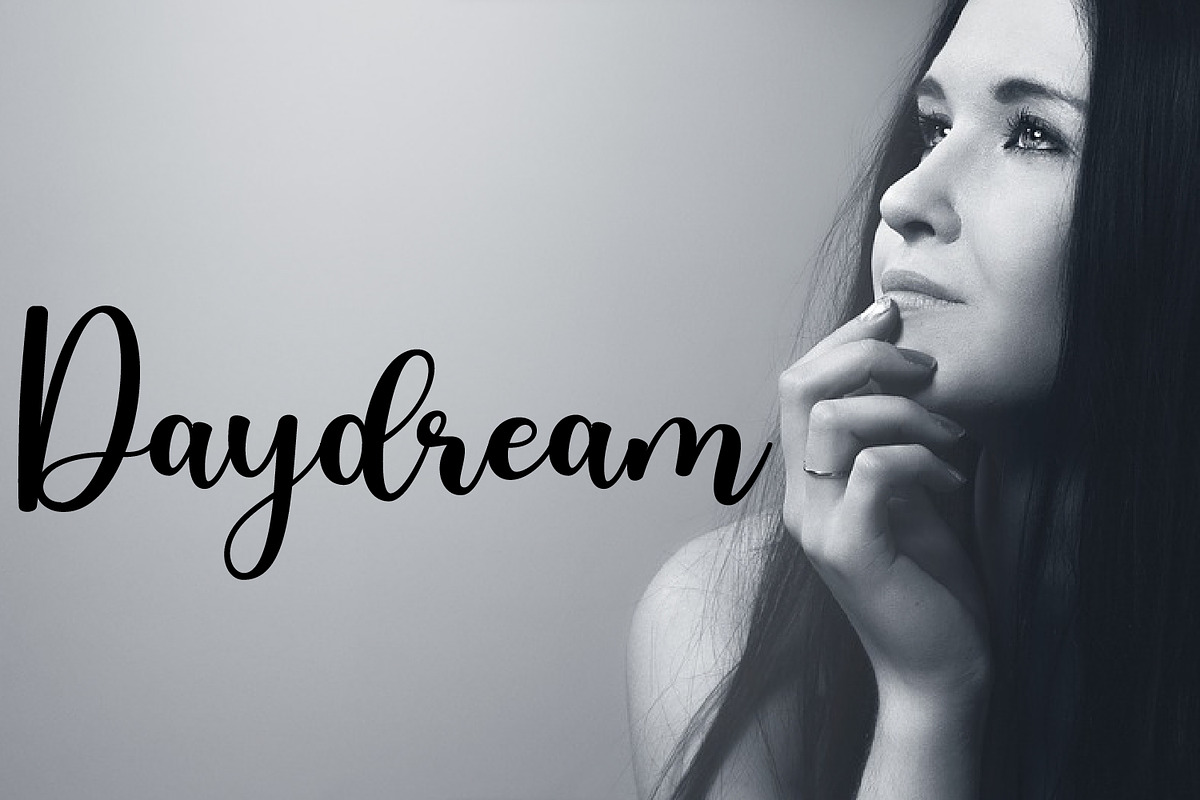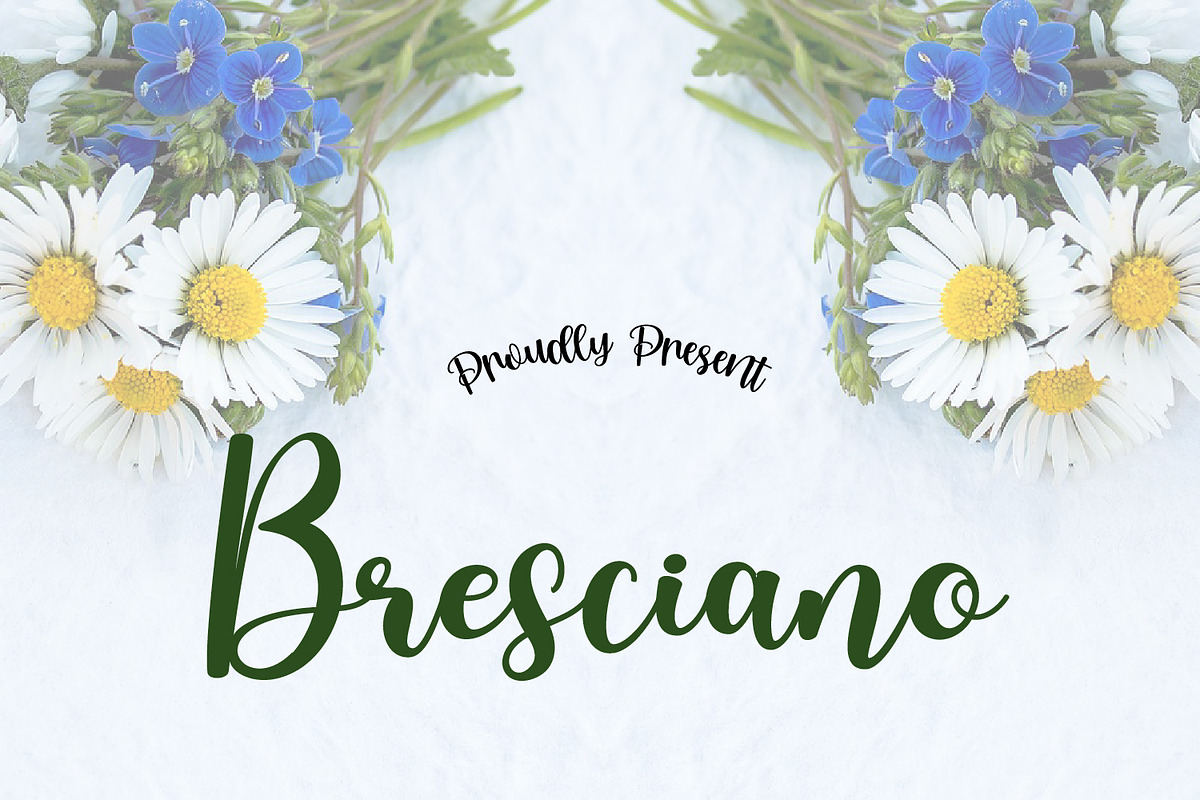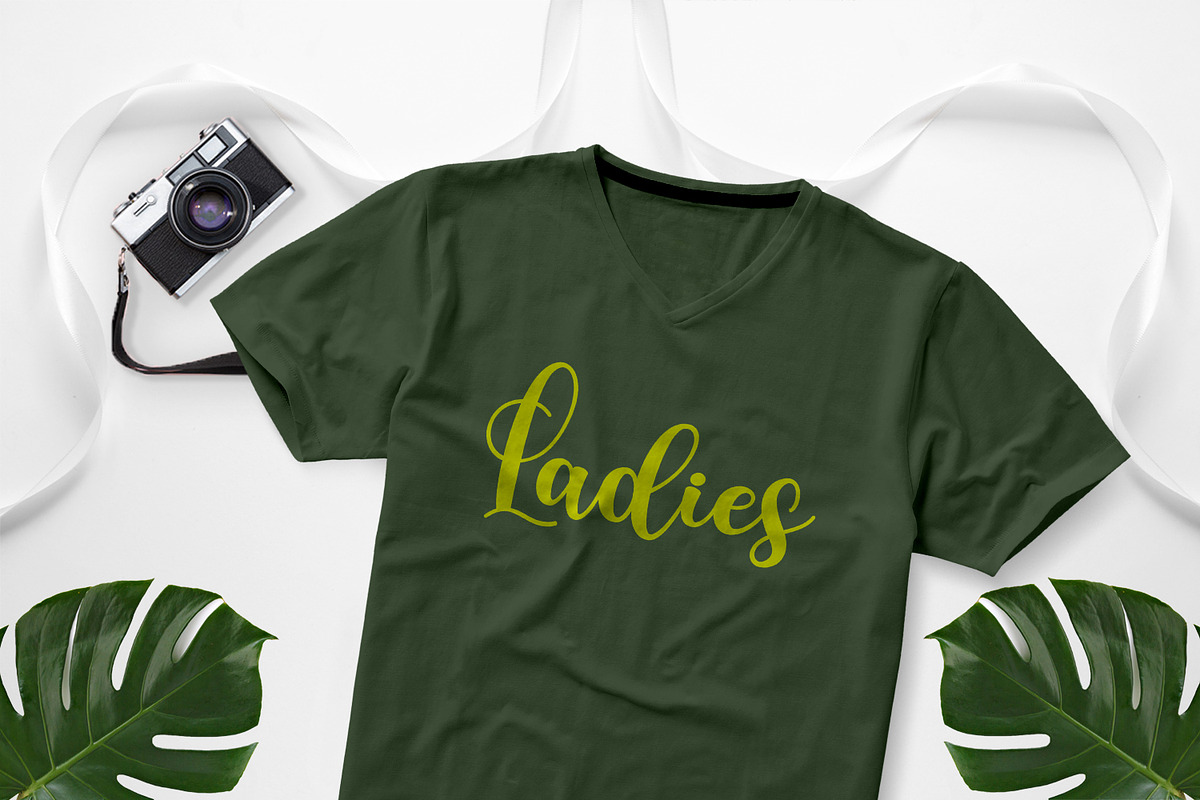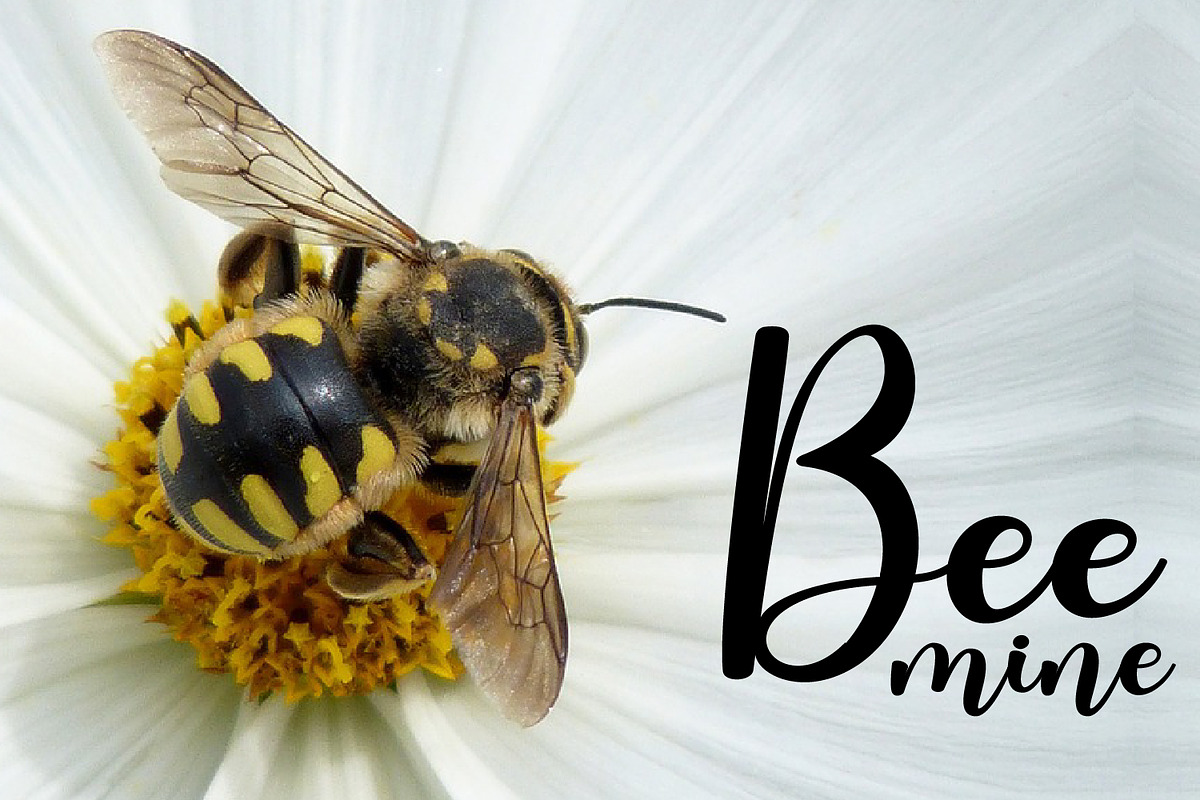
Bresciano Script
Bresciano is the best choice for creating eye catching logos, branding and quotes. Every letter has a unique and beautiful touch, which will make your design come alive!